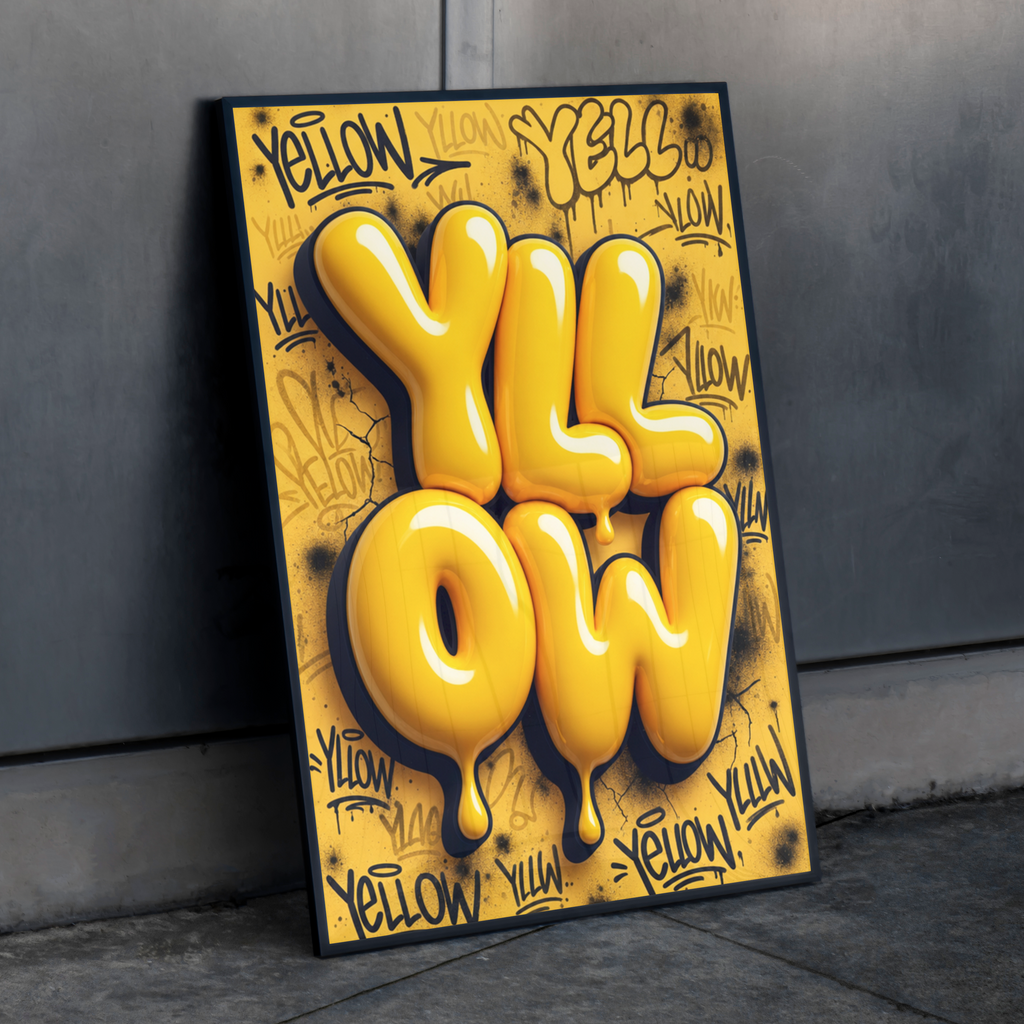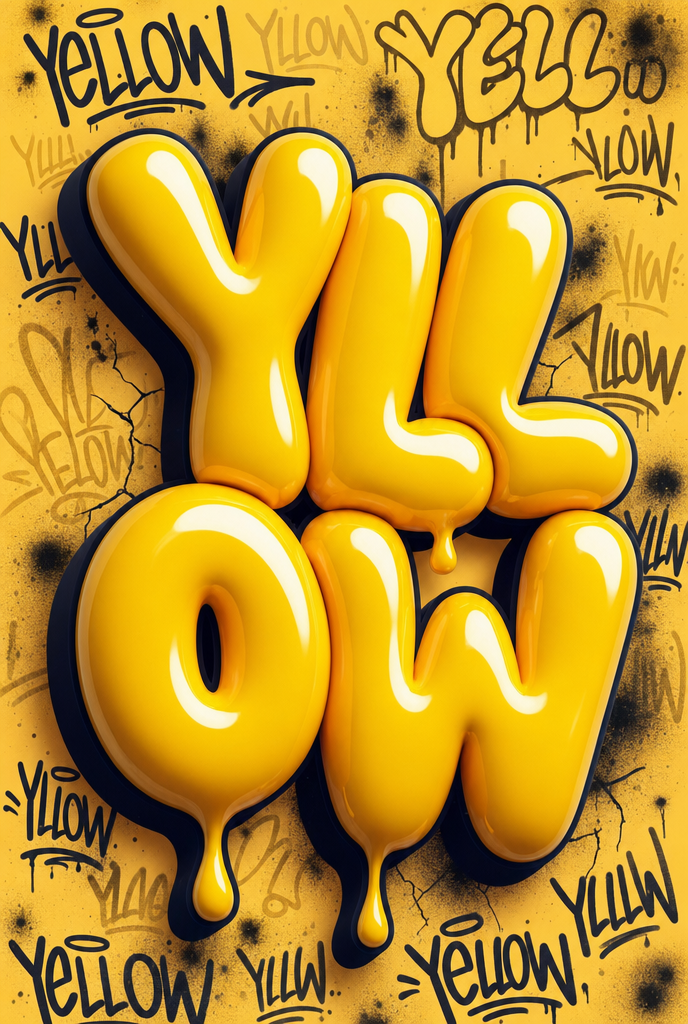
YLLOW
Glossy, balloon-style YELLOW with dripping highlights and hand-tagged background — vibrant, playful poster print (61×91 cm) that brightens kitchens, studios, or kids' rooms.